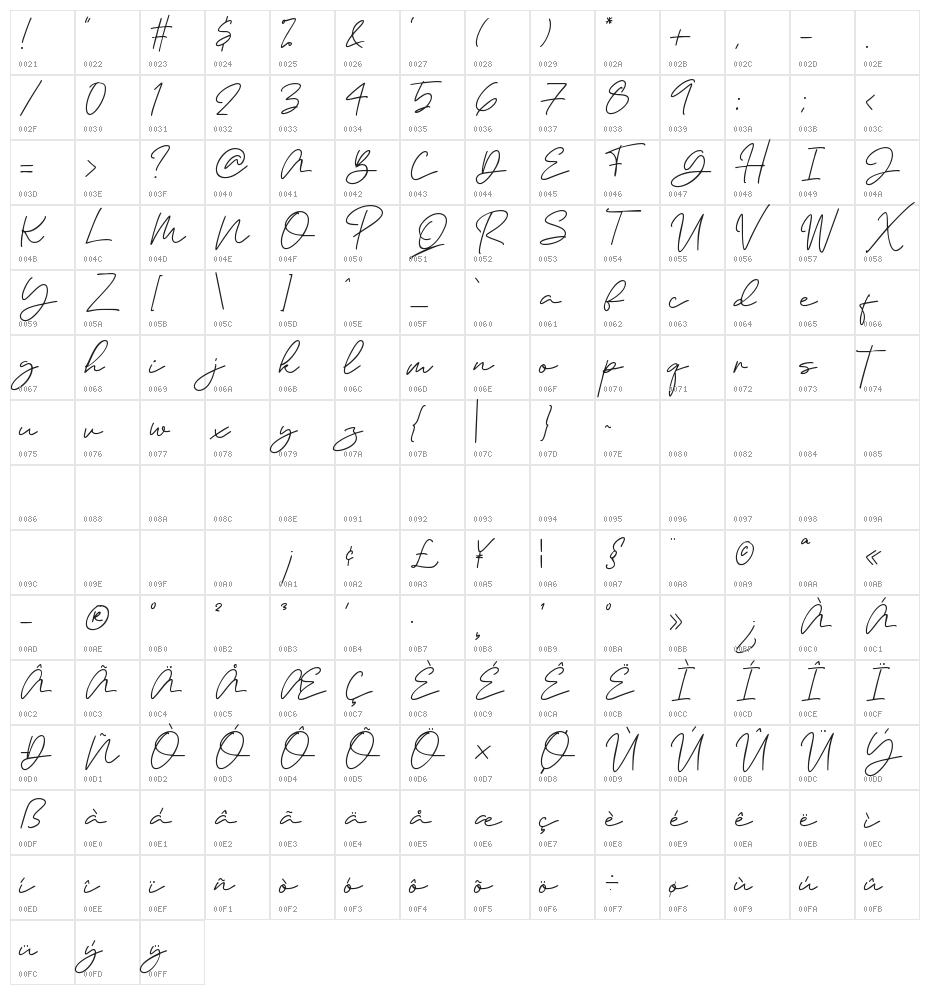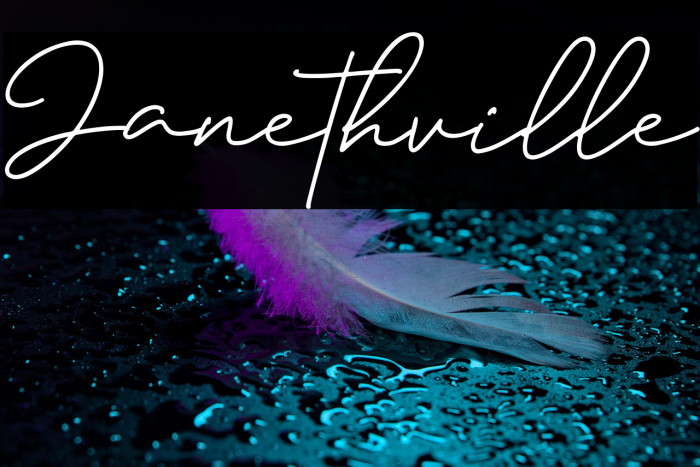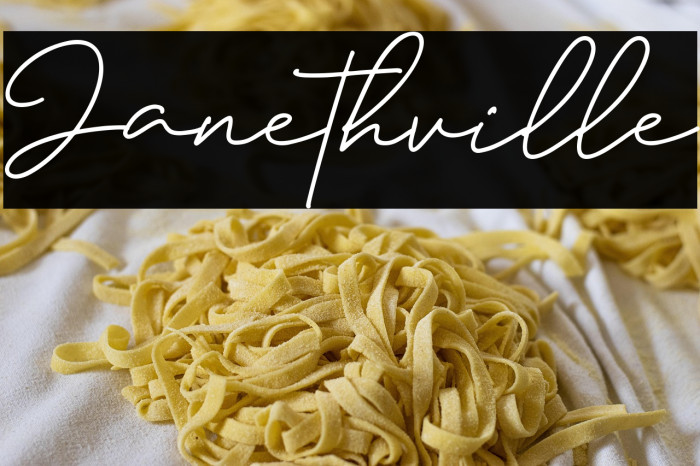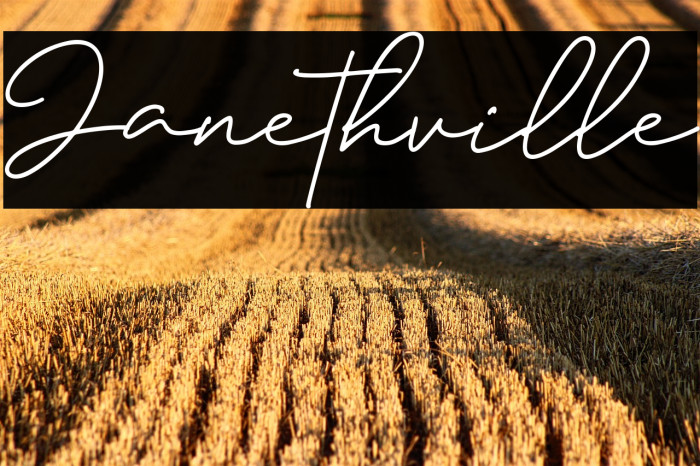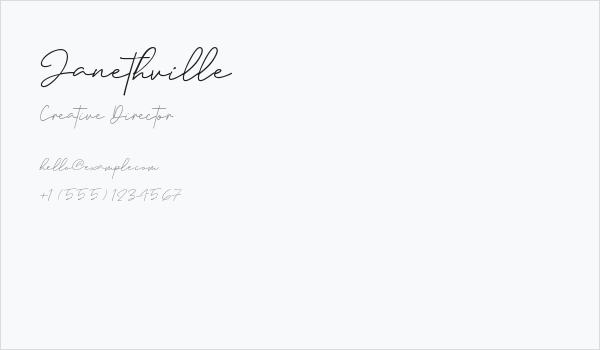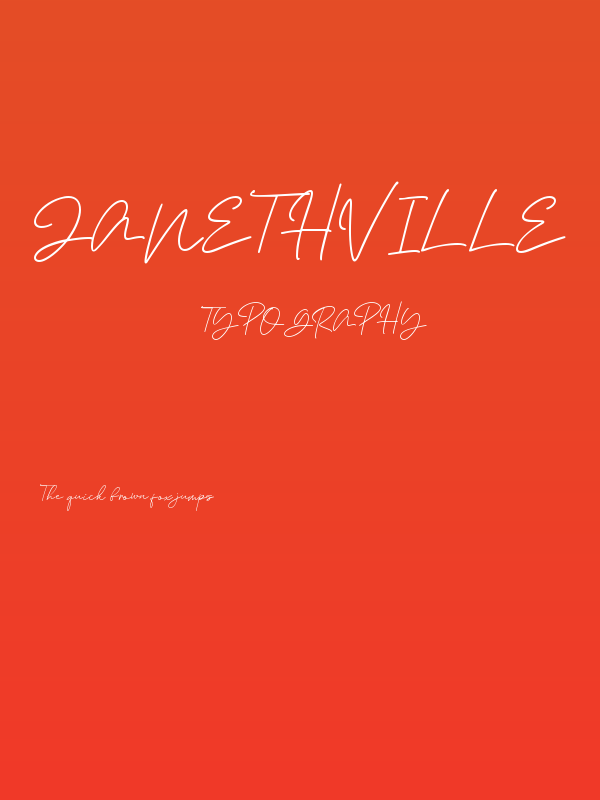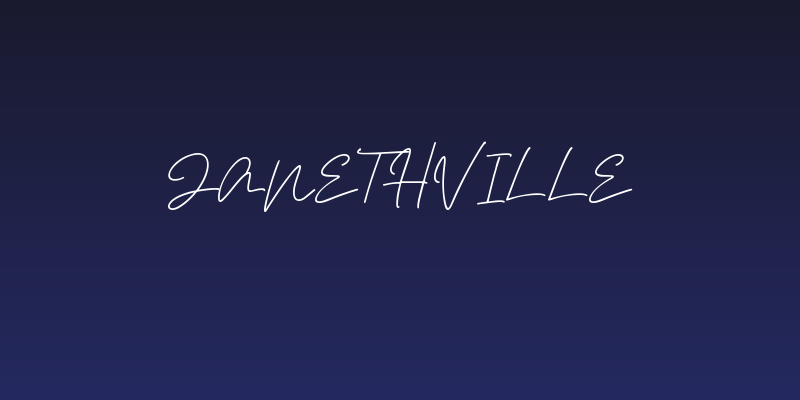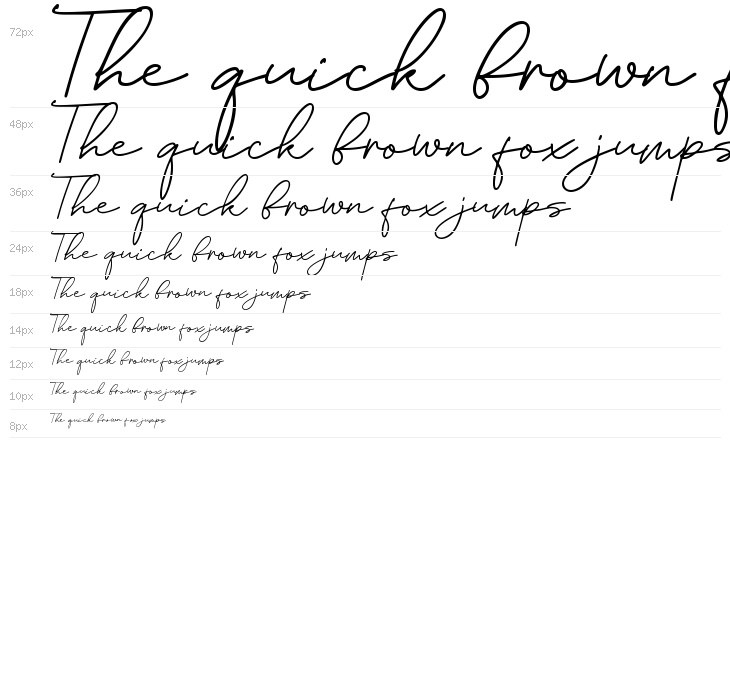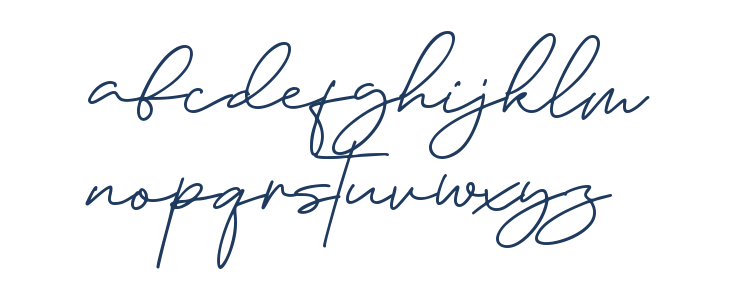
Janethville Font
Janethville Description
This font features a flowing, cursive style that mimics elegant handwriting. The letters are interconnected, creating a seamless and fluid appearance. The strokes are smooth and consistent, with a slight slant that adds to the handwritten feel. The uppercase letters are distinct and stylish, while the lowercase letters maintain a graceful continuity. The numerals and special characters are crafted with the same attention to detail, ensuring a cohesive look across all characters. This font exudes a sense of sophistication and personal touch, making it ideal for projects that require a personal or artistic flair.
| Use Case | Logos, Invitations, Personal branding |
| Proposed Projects | Ideal for wedding invitations, personal branding, greeting cards, and artistic projects. |